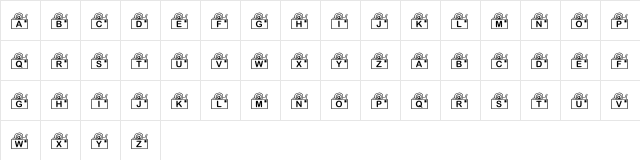
KR Snail Mail Regular
Design Context for KR Snail Mail Typeface
KR Snail Mail is a composed and adaptable typeface that performs quietly and consistently across a wide range of design contexts.